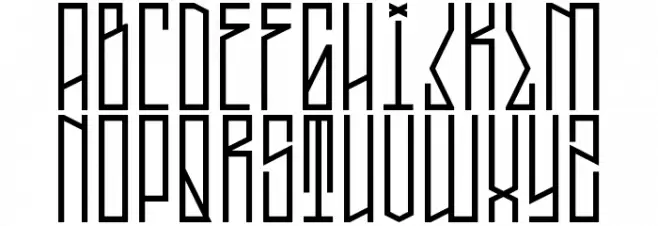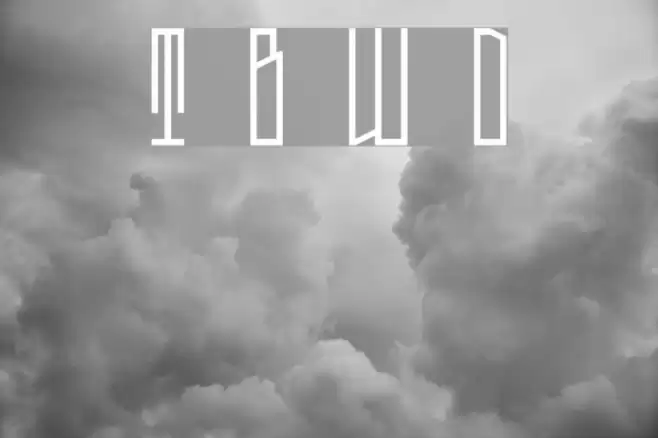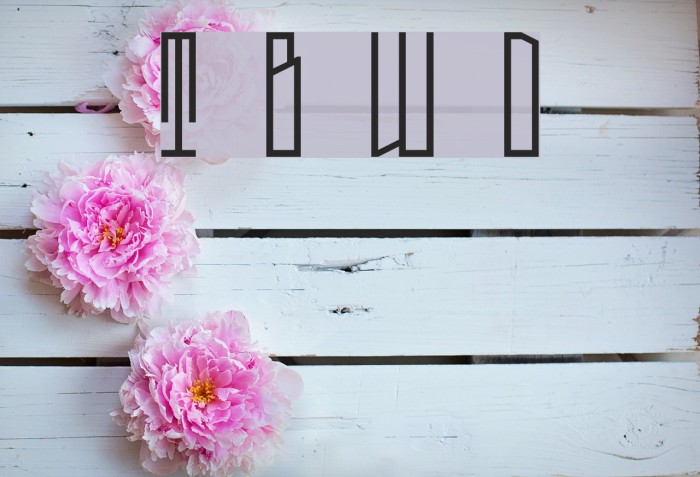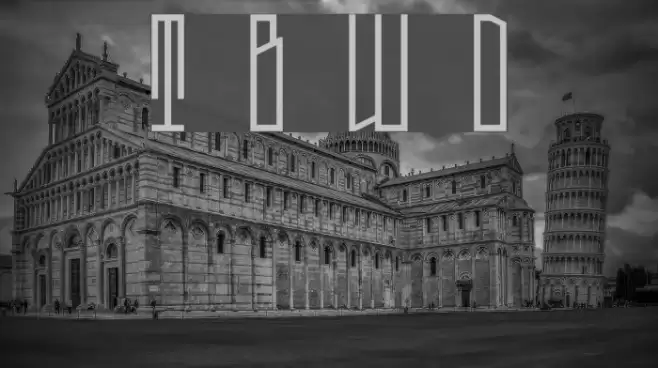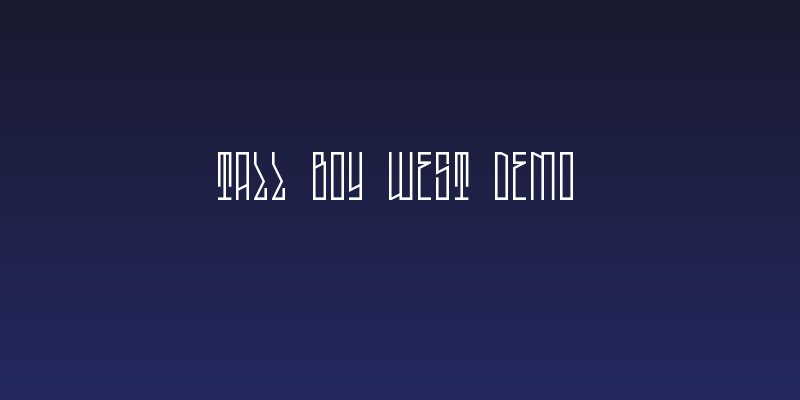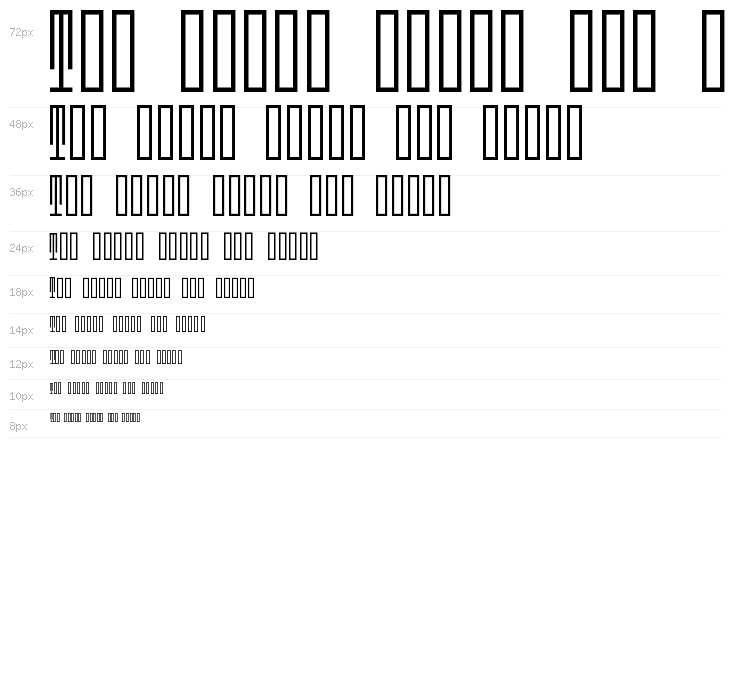
Tall Boy West Demo Font
Tall Boy West Demo Description
This font features a unique, geometric design with tall, narrow characters. Each letter is constructed with straight lines and sharp angles, giving it a modern and edgy appearance. The uppercase letters are particularly striking, with a consistent height and width that creates a uniform look. The lowercase letters maintain the same geometric style, ensuring cohesion throughout the typeface. The numbers and special characters are designed to match the overall aesthetic, making this font versatile for various applications. Its distinct style makes it ideal for projects that require a bold and contemporary look.
| Proposed Projects | Ideal for branding, posters, album covers, and any project needing a modern, edgy aesthetic. |